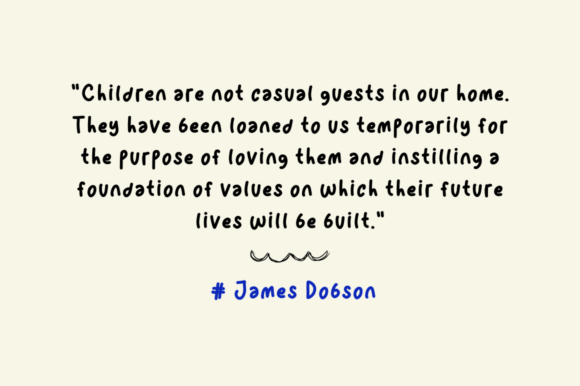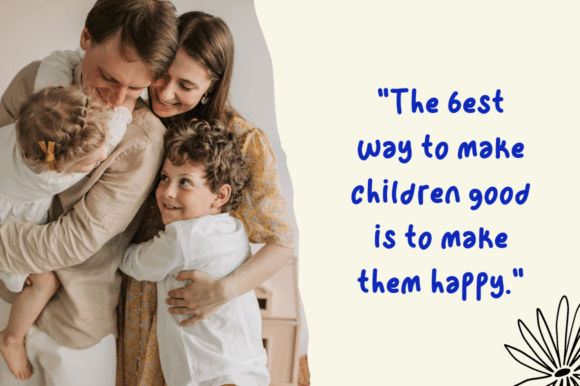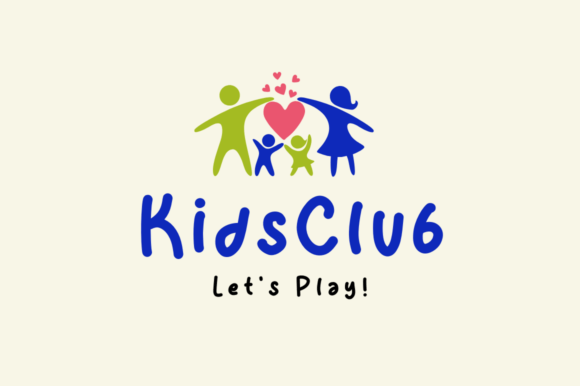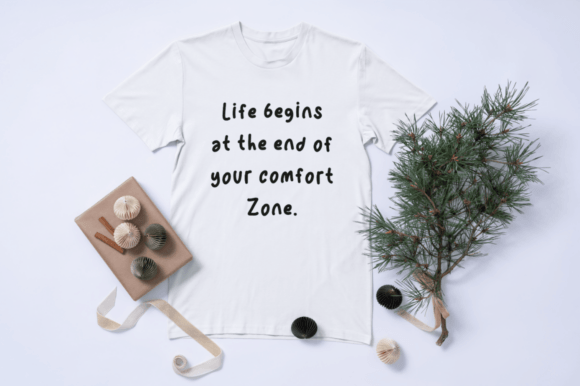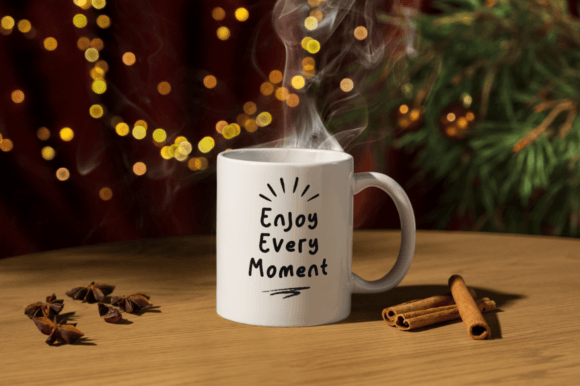
Brown Fox Font: Adding a Touch of Whimsy to Your Designs
Are you looking for a font that can bring a smile to your face and capture the imagination of children? Look no further than the Brown Fox Font! This cheerful and playful handwritten font is designed to add a touch of whimsy to any design project, making it perfect for designers and crafters who work with children’s content.
The Characteristics of Brown Fox Font
The Brown Fox Font is a unique and charming font that boasts rounded letters and organic curves, creating a fun and friendly atmosphere. Its playful design makes it an excellent choice for projects that require a lighthearted and youthful touch. The font’s distinctive features include:
- Rounded letters that give the font a soft and cuddly feel
- Organic curves that add a touch of playfulness and whimsy
- A cheerful and friendly appearance that’s sure to delight children and adults alike
Perfect for Children’s Content
The Brown Fox Font is specifically designed to capture the imagination of children, making it an ideal choice for designers and crafters who create children’s books, invitations, posters, and other materials. Whether you’re working on a picture book, a nursery rhyme, or a kids’ party invitation, this font is sure to bring a smile to your face and the faces of your young audience.
Versatility in Design Projects
The Brown Fox Font is not limited to children’s content only. Its playful and whimsical design makes it suitable for a wide range of design projects, including:
- Children’s books and picture books
- Party invitations and decorations
- Posters and flyers for kids’ events
Why Choose Brown Fox Font?
So, why should you choose the Brown Fox Font for your design projects? Here are just a few reasons:
- Unique and eye-catching design: The Brown Fox Font stands out from more traditional fonts, adding a touch of personality to your designs.
- Easy to read: Despite its playful design, the font is easy to read, making it suitable for body text and headlines.
- Highly versatile: The font can be used in a wide range of design projects, from children’s content to social media graphics.
- Fun and engaging: The Brown Fox Font is sure to bring a smile to your face and the faces of your audience, making it perfect for projects that require a lighthearted touch.
Tips for Using Brown Fox Font
To get the most out of the Brown Fox Font, here are a few tips to keep in mind:
- Use it in combination with other fonts: Pair the Brown Fox Font with a more traditional font to create visual interest and add contrast to your designs.
- Experiment with colors and textures: The Brown Fox Font looks great in a variety of colors and textures, so don’t be afraid to get creative and try out different combinations.
- Keep it playful: The Brown Fox Font is all about having fun, so don’t be afraid to get playful with your designs and try out new and creative ideas.
The Brown Fox Font is a unique and charming font that’s perfect for designers and crafters who want to add a touch of whimsy to their designs. With its rounded letters, organic curves, and cheerful appearance, this font is sure to capture the imagination of children and bring a smile to your face. Whether you’re working on children’s books, invitations, posters, or other design projects, the Brown Fox Font is a great choice for adding a playful and friendly touch.